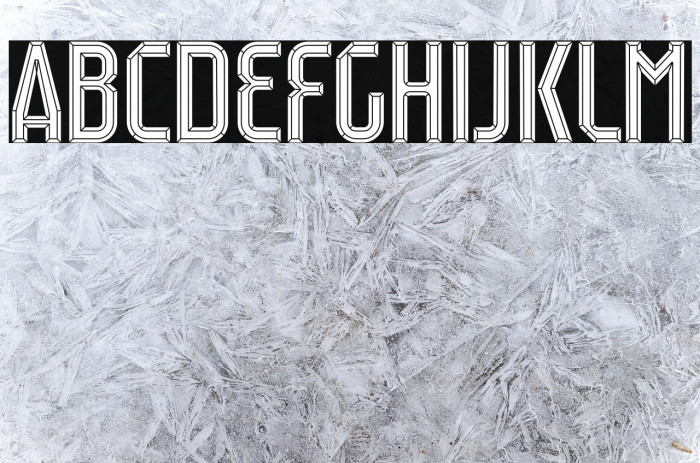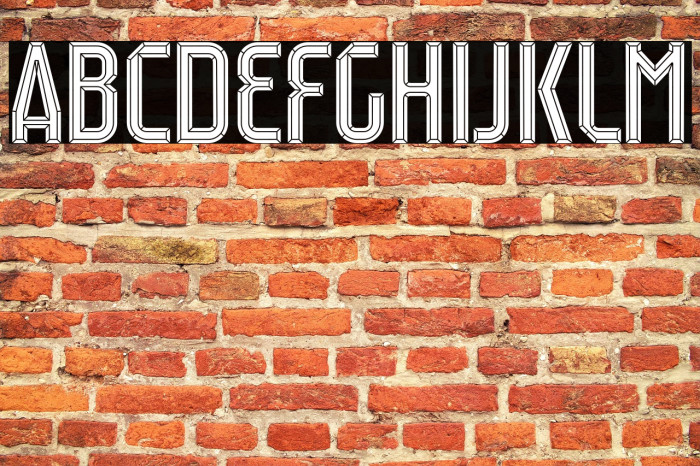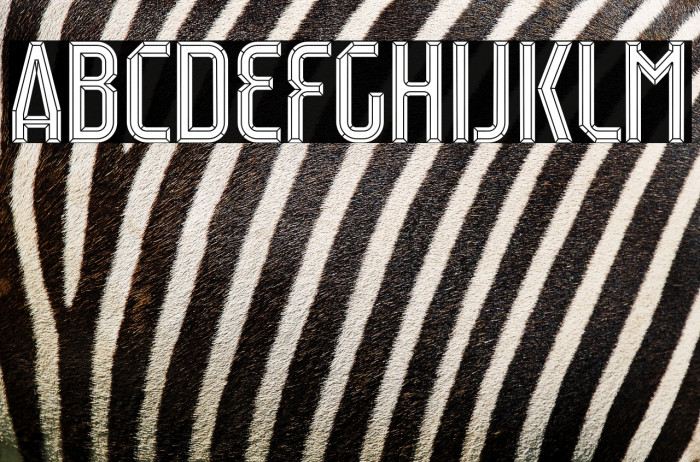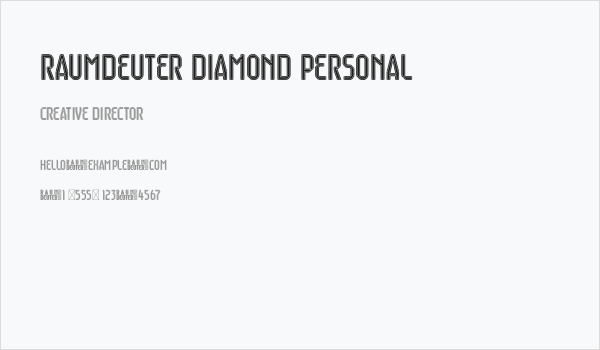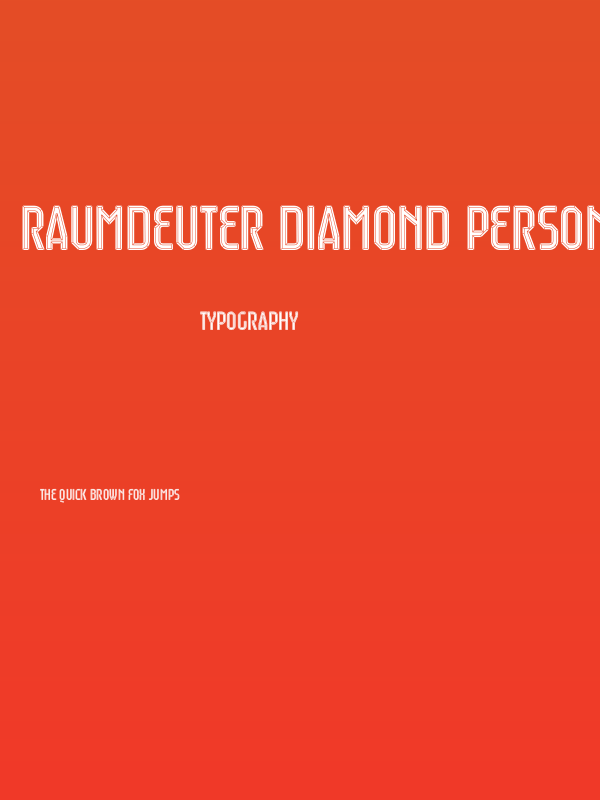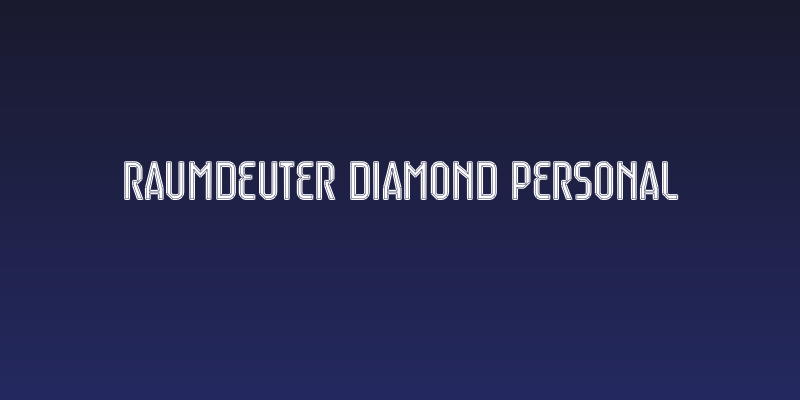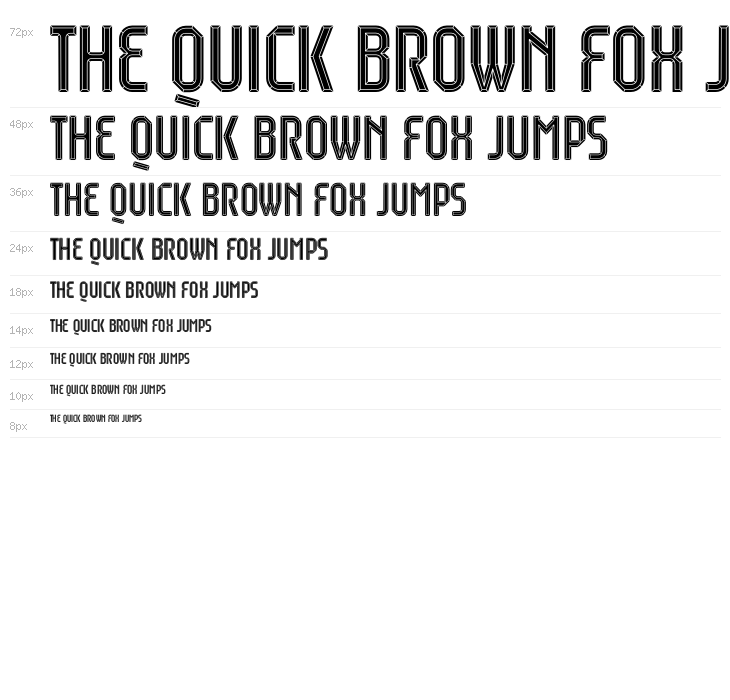
Raumdeuter Diamond Personal Font
Raumdeuter Diamond Personal Description
This font features a bold, geometric design with a distinct three-dimensional effect. Each character is crafted with sharp angles and a double-line structure that creates a sense of depth and dimension. The uppercase letters are particularly striking, with a strong presence that commands attention. The numerals and special characters maintain this bold style, ensuring consistency across all text. The font's unique style makes it ideal for projects that require a modern and edgy look.
| Proposed Projects | Ideal for branding, posters, and headlines that require a modern and striking appearance. |